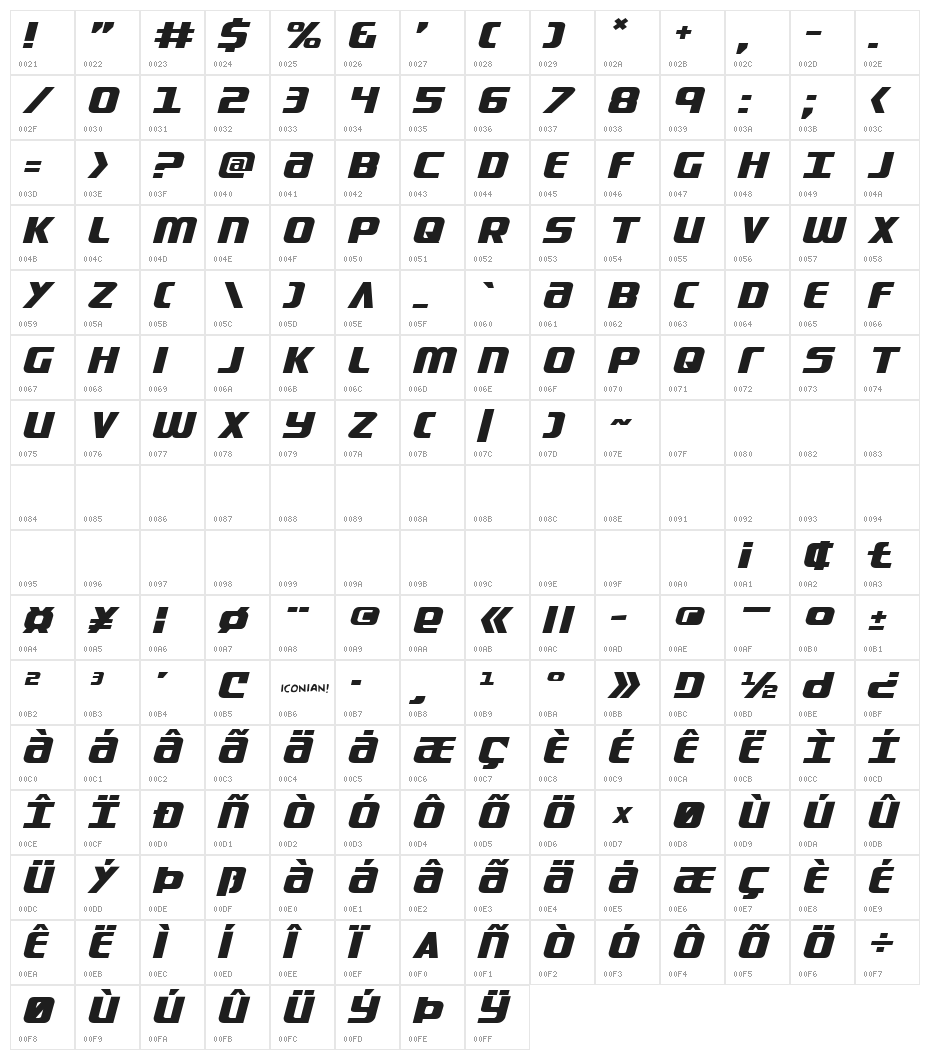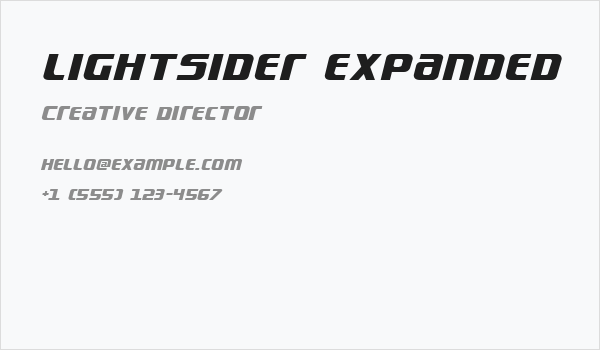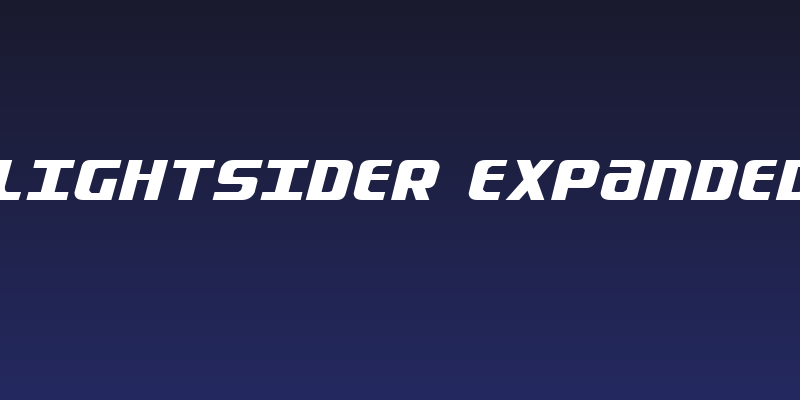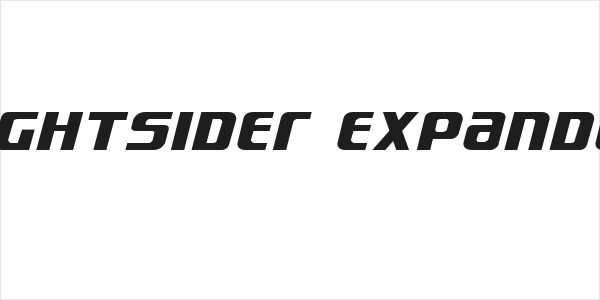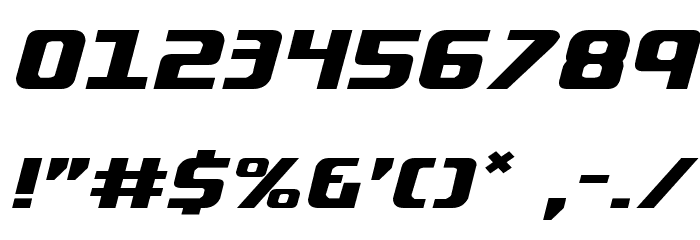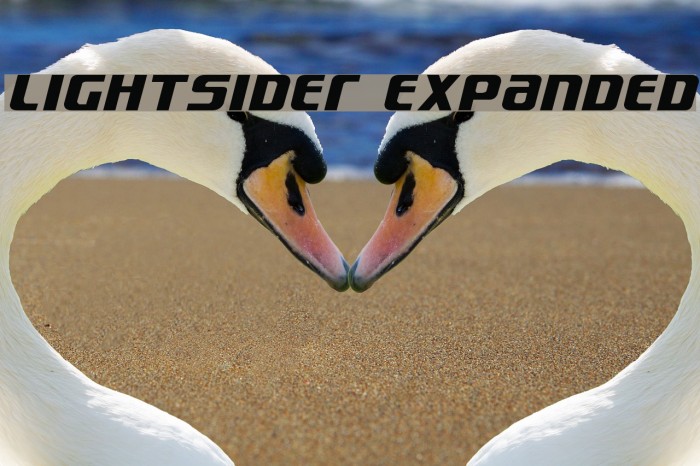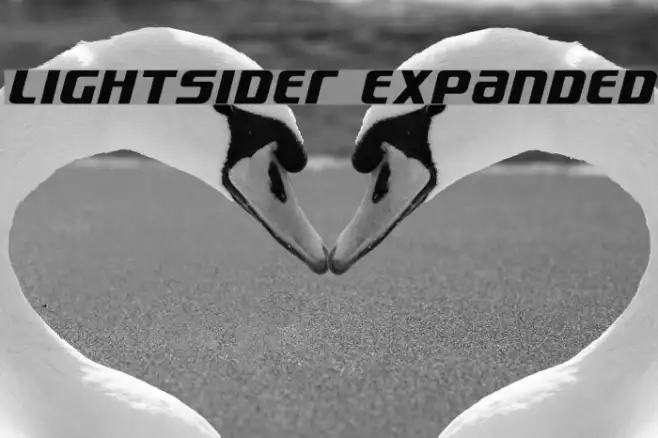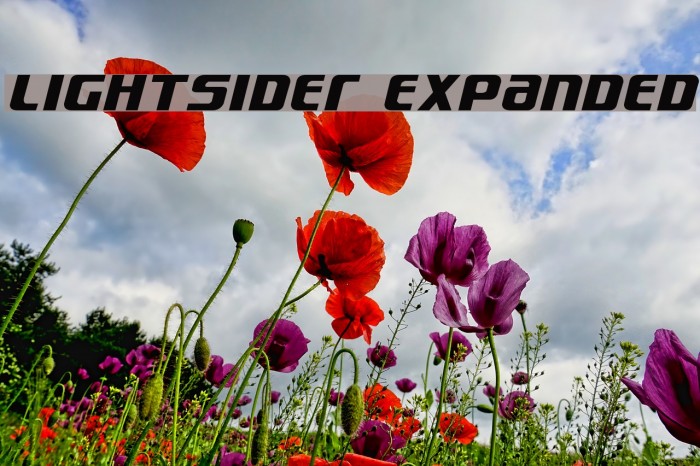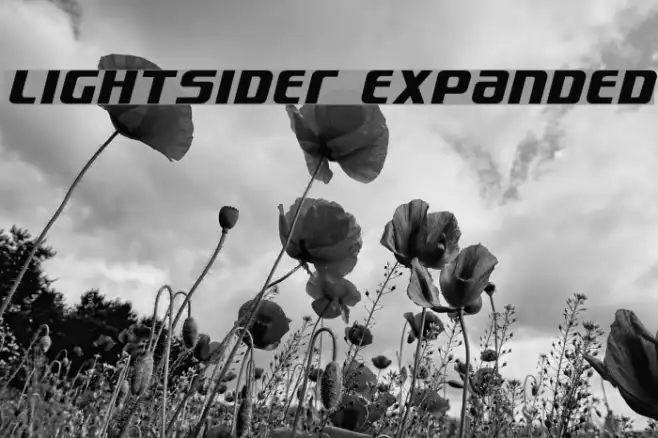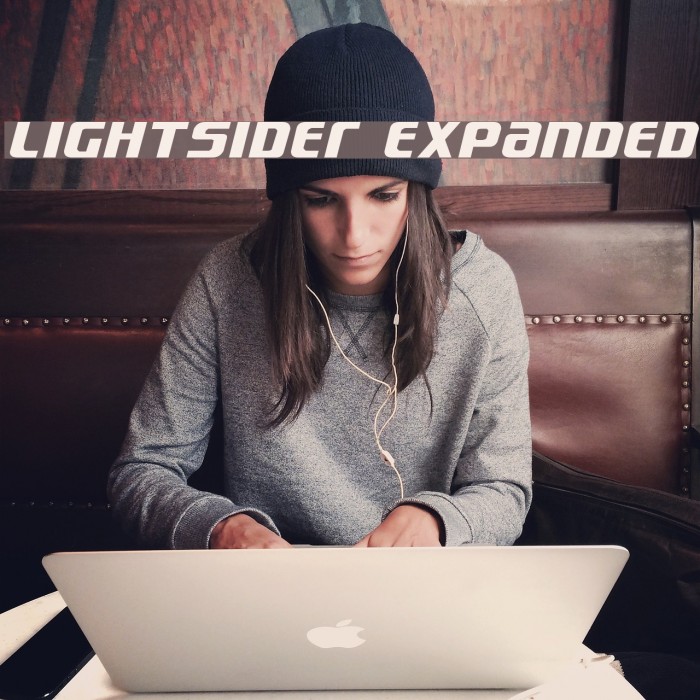
Lightsider Expanded Font
Lightsider Expanded Description
This font features a bold and dynamic style with a futuristic flair. The characters are slightly slanted, giving a sense of movement and speed. The strokes are thick and consistent, providing a strong visual impact. The design is clean and modern, with a geometric influence that is evident in the angular shapes and straight lines. The uppercase and lowercase letters maintain a uniform appearance, while the numerals and special characters complement the overall aesthetic. This font is well-suited for projects that require a contemporary and energetic look.
| Proposed Projects | Ideal for technology branding, sports team logos, and modern advertising campaigns. |